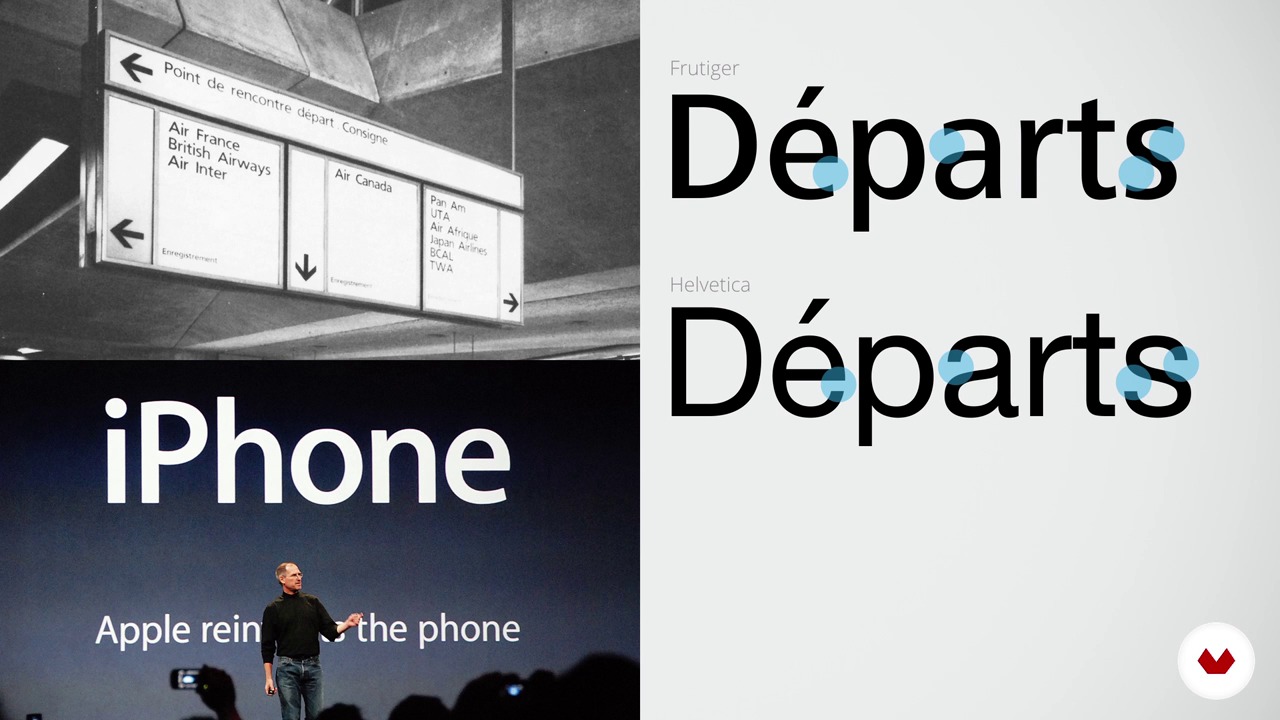
How to Choose Fonts
Legibility: small texts and large texts
About the video: Legibility: small texts and large texts
“The comfort when choosing a typeface is a concept to take into account. In this lesson I tell you the reason.”
In this video lesson Enric Jardí addresses the topic: Legibility: small texts and large texts, which is part of the Domestika online course: How to Choose Fonts. Discover what each type of font tells us and how to choose the right one for your project.
“Readability, small text and large text In this lesson we will see the choice of type for small bodies, which is one of the critical decisions in designing for a page. We will see why books are actually the way they are and why are we so conservative when we make, for example, a classic text. That a short text can be read is important. In a long text, as would be the page of a novel or the text of the news of a newspaper, what we call body text, not only must it be legible, but it must be comfortable and ideally it should invite to be read. It should not be lazy to read it. The larger the te...”